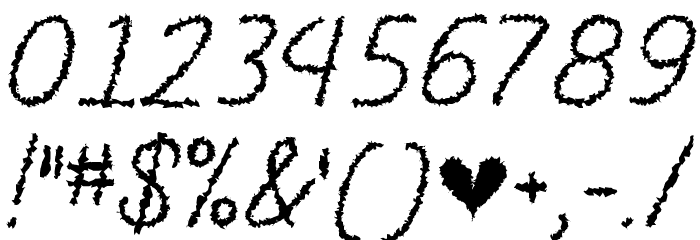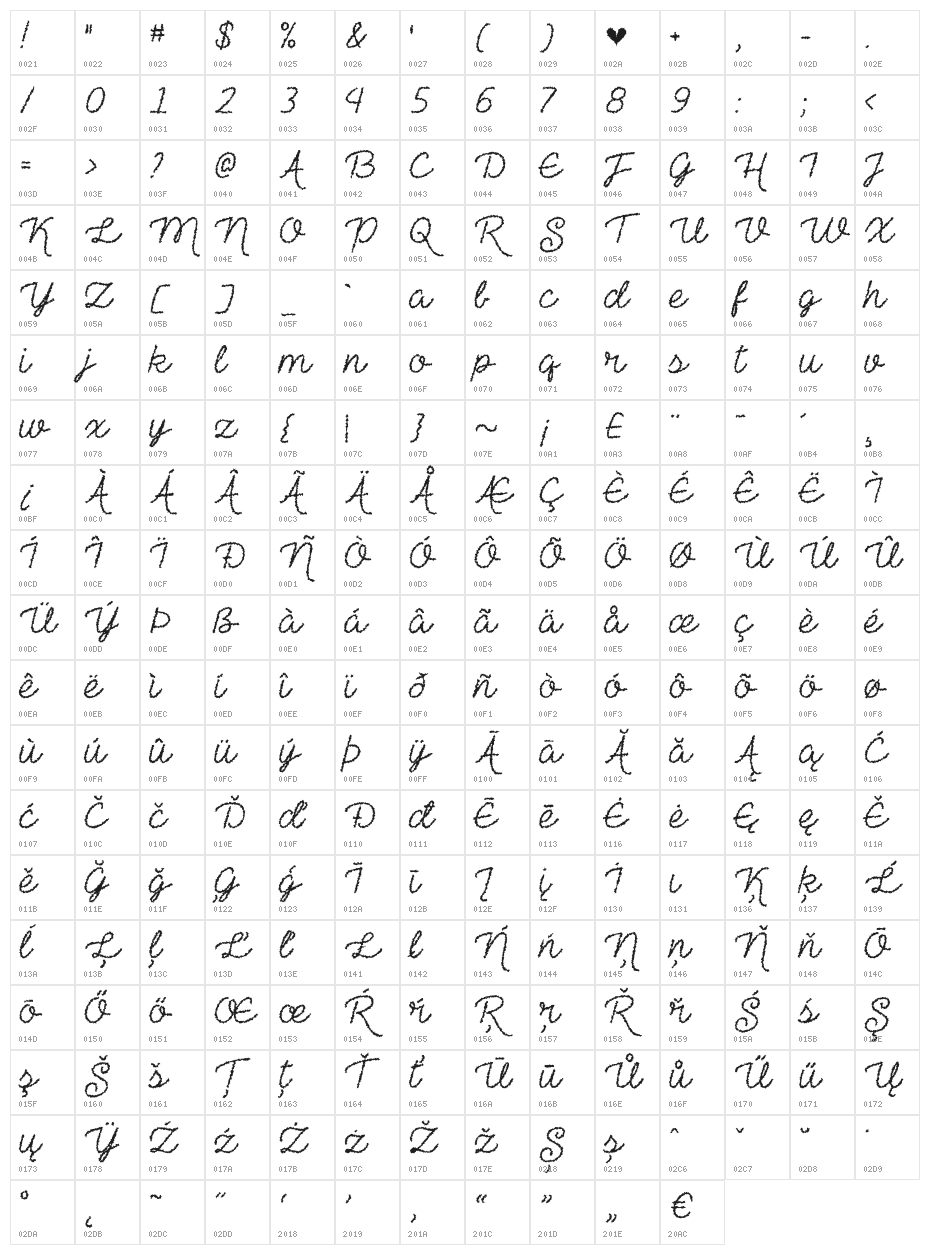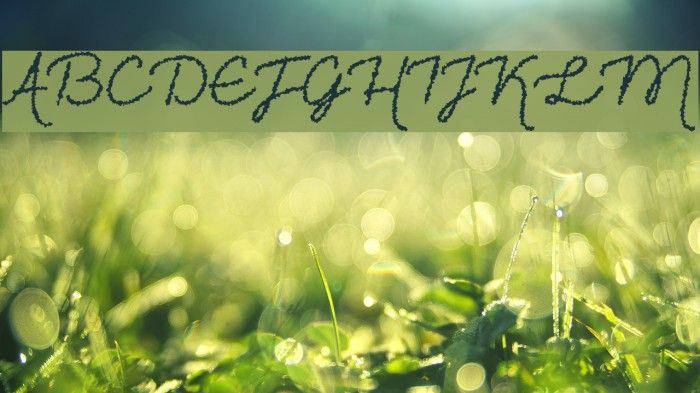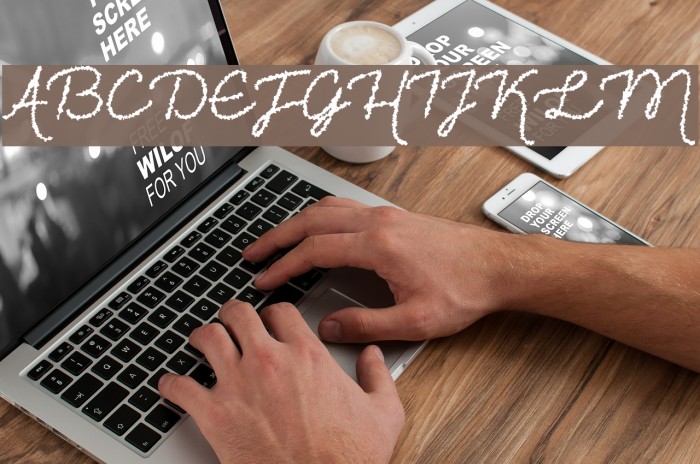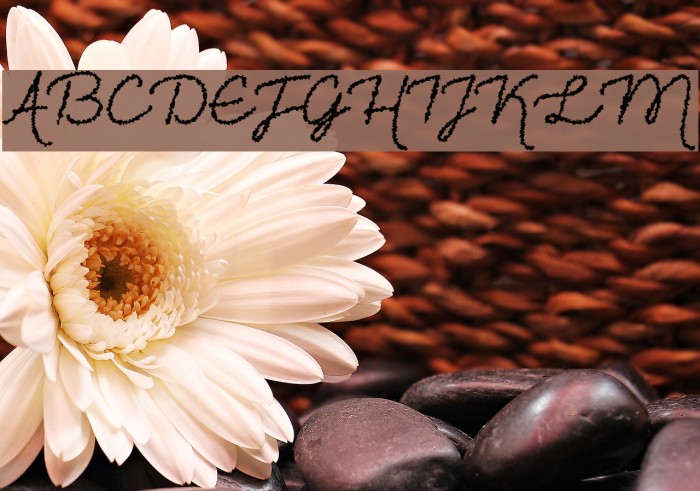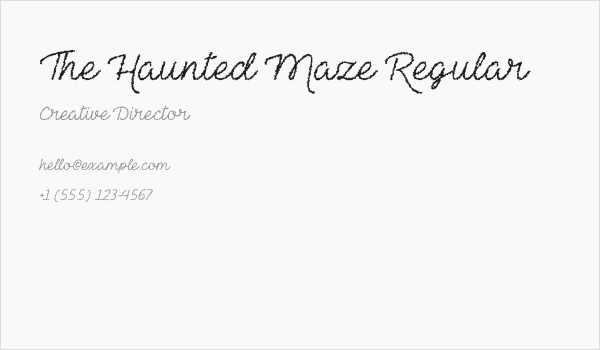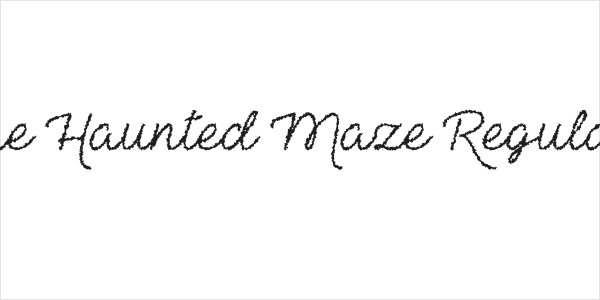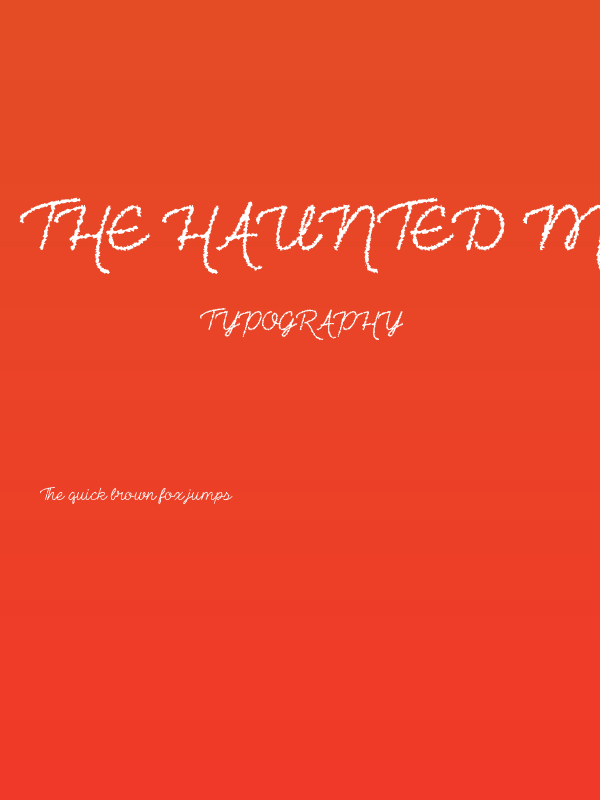
The Haunted Maze Regular Font
The Haunted Maze Regular Description
This font features a unique, textured script style that mimics the appearance of handwriting with a slightly eerie, jagged edge. The characters are connected in a fluid manner, giving it a cohesive and continuous look. The uppercase letters are elegantly crafted with sweeping curves, while the lowercase letters maintain a consistent flow. Numbers and special characters are designed to match the overall aesthetic, with a playful yet mysterious vibe. The texture adds a sense of depth and intrigue, making it suitable for creative and themed projects.
| Use Case | Headlines, Logos, Themed Invitations |
| Proposed Projects | Ideal for Halloween-themed designs, spooky invitations, creative posters, and artistic branding. |